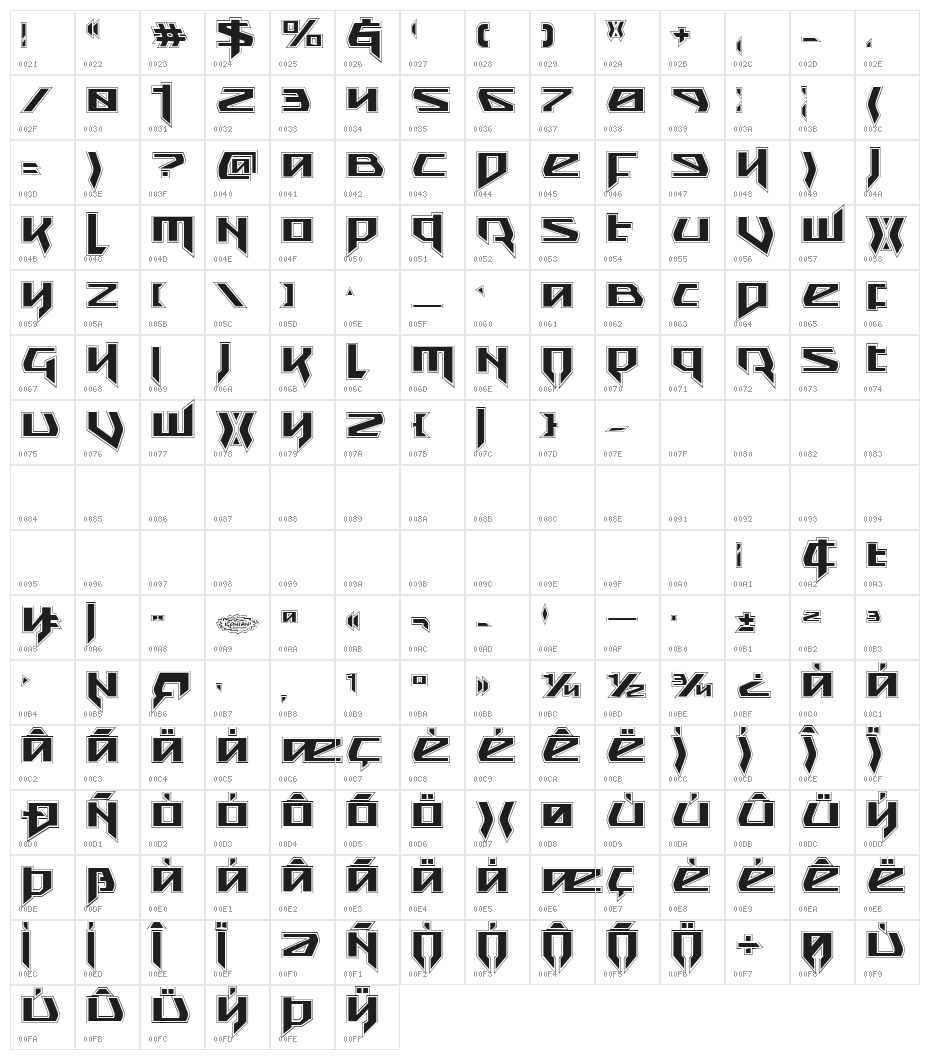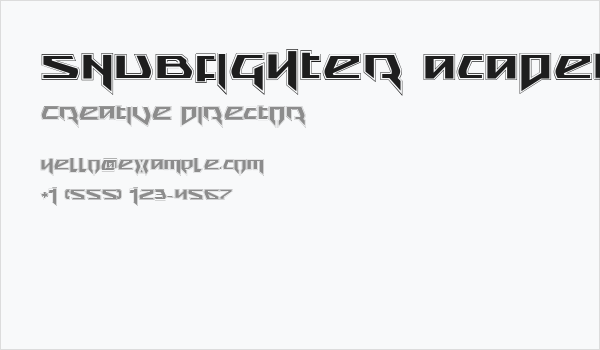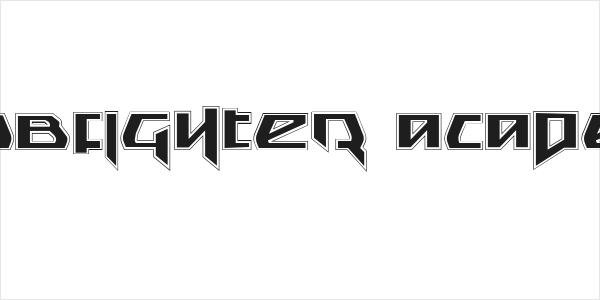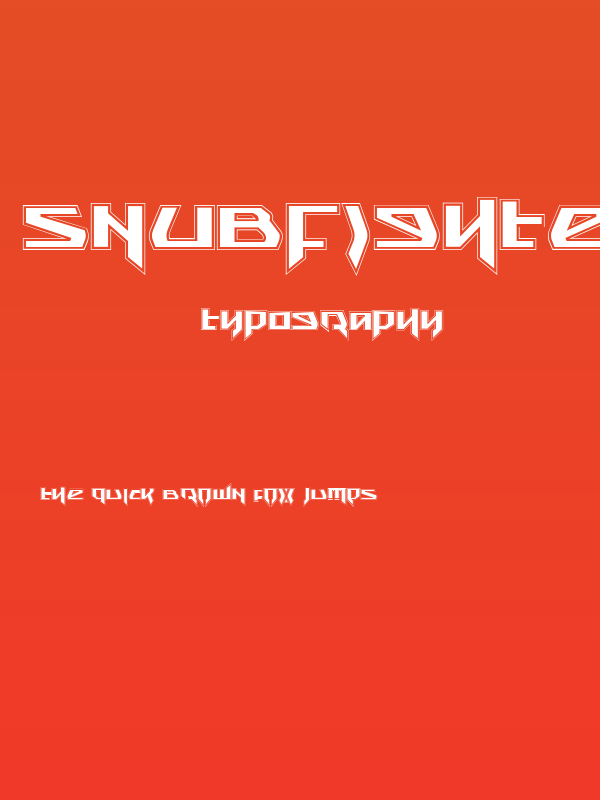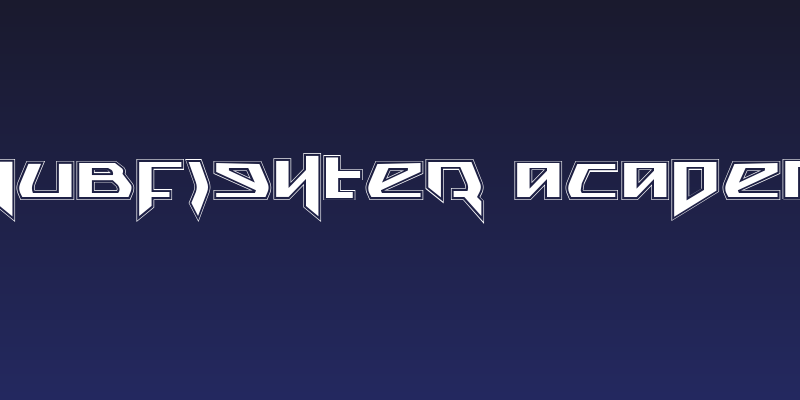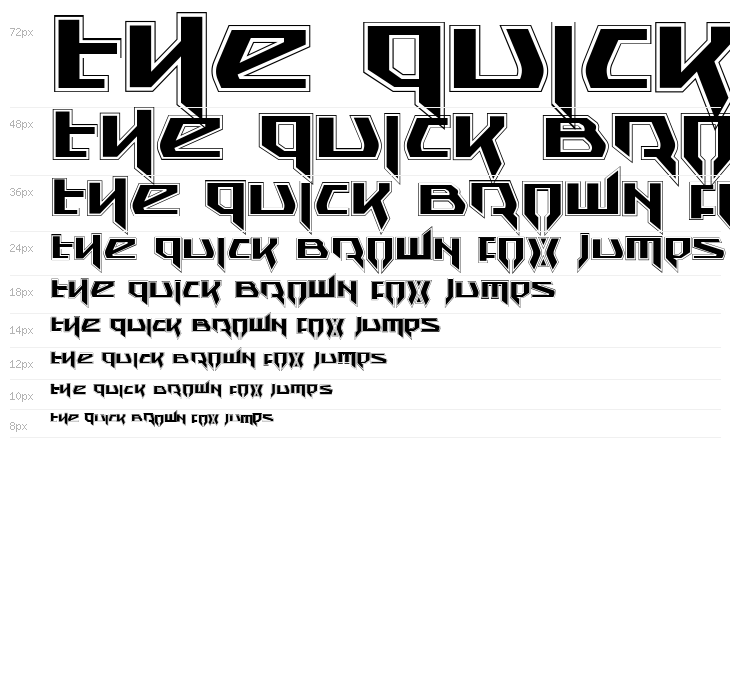
Snubfighter Academy Font
Snubfighter Academy Description
This font features a bold, angular design with a futuristic and edgy aesthetic. The characters are sharply defined with a distinct geometric style, incorporating pointed edges and dynamic shapes. The uppercase and lowercase letters maintain a consistent theme, emphasizing a sense of movement and energy. The numbers and special characters follow the same design principles, ensuring a cohesive look across all glyphs. This font's unique style makes it stand out, ideal for projects that require a modern and impactful visual presence.
| Proposed Projects | Ideal for sci-fi themed posters, video game titles, and branding for tech companies. |